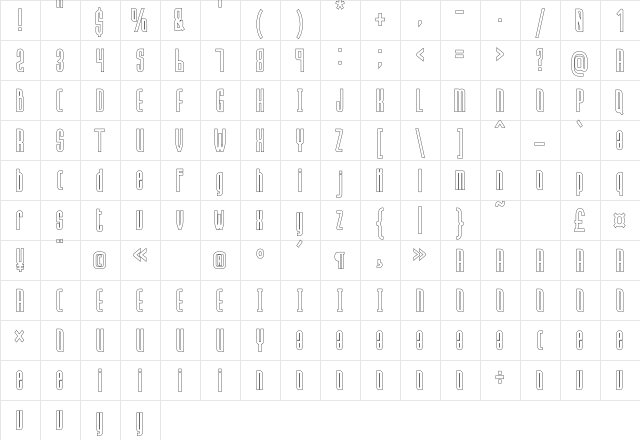
Hanca Outline
StyleOutline
DesignerVasgaz Creative // Randy Ilhamsyah
Design Context for Hanca Typeface
Hanca is built around its visual character rather than neutral utility — its distinctive forms are designed to make an impression at display sizes.